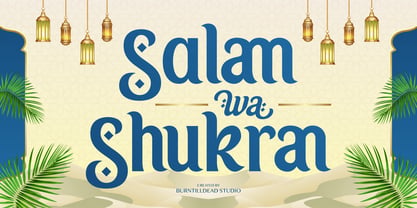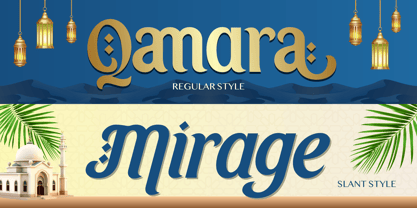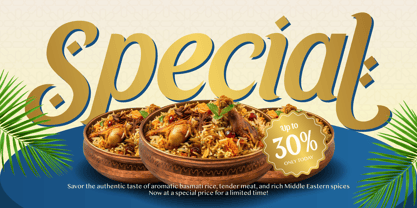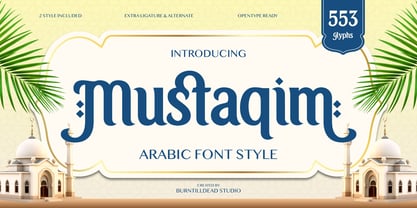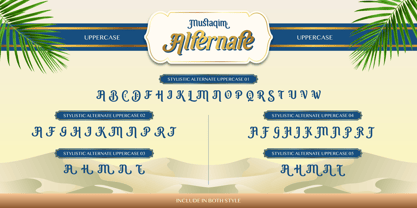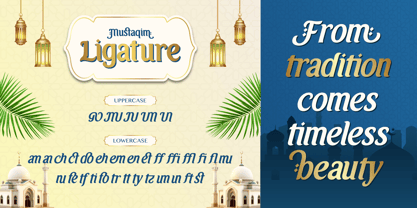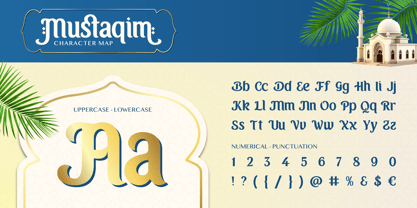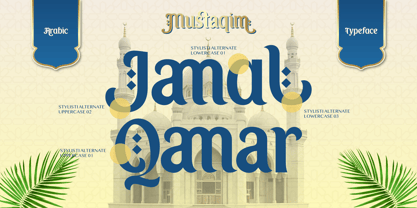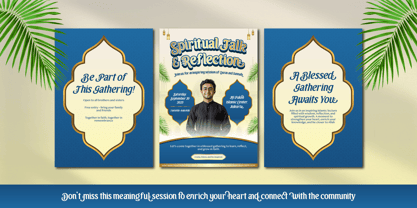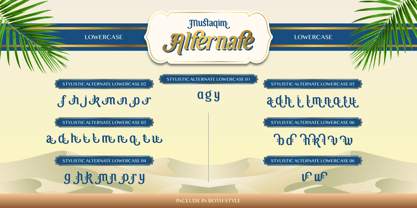
Mustaqim
by Burntilldead
The Mustaqim Font Family was designed by Eric Kurniawan and published by Burntilldead. Mustaqim contains 2 styles and family package options. More about this family
Meet Mustaqim, an Arabic inspired display font that brings elegance and culture into every design. With its smooth curves, unique ligatures, and 553 glyphs, this font is perfect for projects that need a touch of tradition with a modern twist. Whether you’re working on Ramadan greetings, branding, logos, or social media content, Mustaqim makes your words look meaningful and stylish. Available in Regular and Slant styles, Mustaqim gives you flexibility to match different moods and vibes. It’s more than just a font, it’s a way to bring stories, culture, and creativity together in a beautiful design.